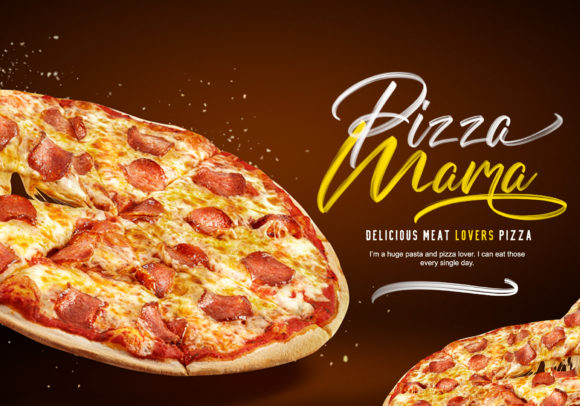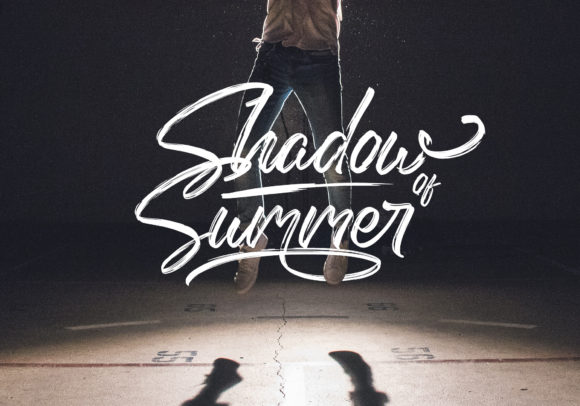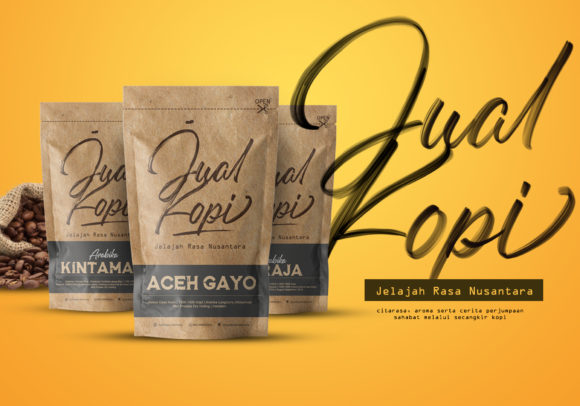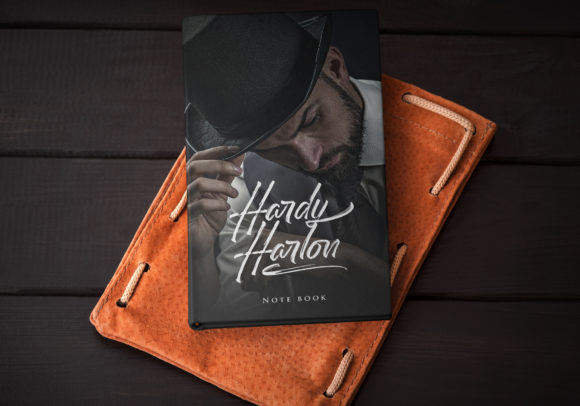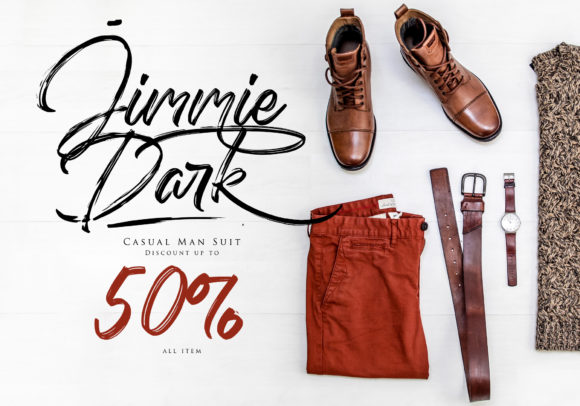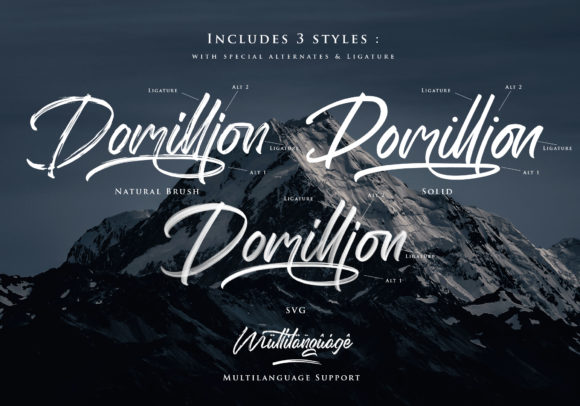
Introducing Domillion Font: The Ultimate Urban Handwritten Font
Are you tired of using the same old fonts in your designs? Look no further! Domillion Font is here to revolutionize your typography with its fresh, urban, and stylish handwritten aesthetic. This bold font is perfect for designers and crafters looking to add a touch of authenticity to their work.
The Charm of Domillion Font
Domillion Font boasts a unique and captivating charm that sets it apart from other fonts. Its bold feel and urban vibe make it ideal for a wide range of design projects, from branding and advertising to packaging and digital media. Whether you’re looking to create a statement piece or simply want to add some personality to your text, Domillion Font is the perfect choice.
Key Features of Domillion Font
- Fresh and Modern Design: Domillion Font features a fresh and modern design that’s perfect for contemporary designs.
- Urban and Stylish: The font’s urban and stylish aesthetic makes it ideal for designs that require a bold and edgy look.
- Handwritten with a Bold Feel: Domillion Font has a bold feel that’s reminiscent of handwritten text, giving it a unique and authentic charm.
- Versatile: The font is versatile and can be used for a wide range of design projects, from print to digital media.
Why Choose Domillion Font?
So, why choose Domillion Font over other fonts? Here are just a few reasons:
- Stand Out from the Crowd: Domillion Font is a unique and distinctive font that will help your designs stand out from the crowd.
- Authentic Charm: The font’s handwritten aesthetic gives it an authentic charm that’s hard to find in digital fonts.
- Easy to Read: Despite its bold feel, Domillion Font is easy to read, making it perfect for body text and headlines.
- High-Quality: The font is of high quality, ensuring that it will look great in any design.
How to Use Domillion Font
Using Domillion Font is easy! Here are a few tips to get you started:
- Pair it with Other Fonts: Domillion Font pairs well with other fonts, so don’t be afraid to experiment with different combinations.
- Use it for Headlines and Body Text: The font is versatile and can be used for both headlines and body text.
- Experiment with Different Colors: Domillion Font looks great in a variety of colors, so don’t be afraid to experiment with different hues.
Domillion Font for Designers and Crafters
Domillion Font is perfect for designers and crafters who want to add a touch of personality to their work. Here are just a few ways you can use the font:
- Branding and Advertising: Use Domillion Font to create eye-catching branding and advertising materials that will stand out from the crowd.
- Packaging Design: The font is perfect for packaging design, adding a touch of personality to your products.
- Digital Media: Domillion Font can be used for digital media, including social media graphics, blog posts, and more.
- Crafting and Scrapbooking: The font is also perfect for crafters and scrapbookers who want to add a personal touch to their projects.
In conclusion, Domillion Font is a fresh, urban, and stylish handwritten font that’s perfect for designers and crafters looking to add a touch of authenticity to their work. With its bold feel and authentic charm, this font is sure to inspire your creativity and take your designs to the next level.